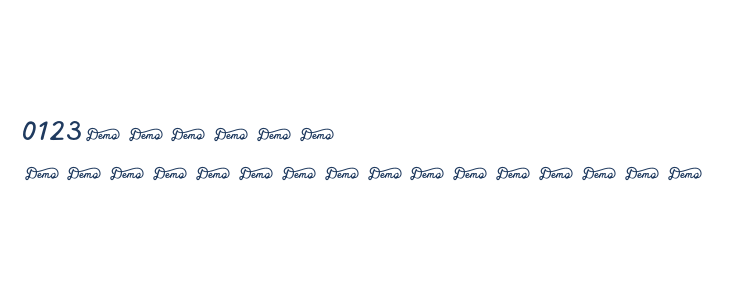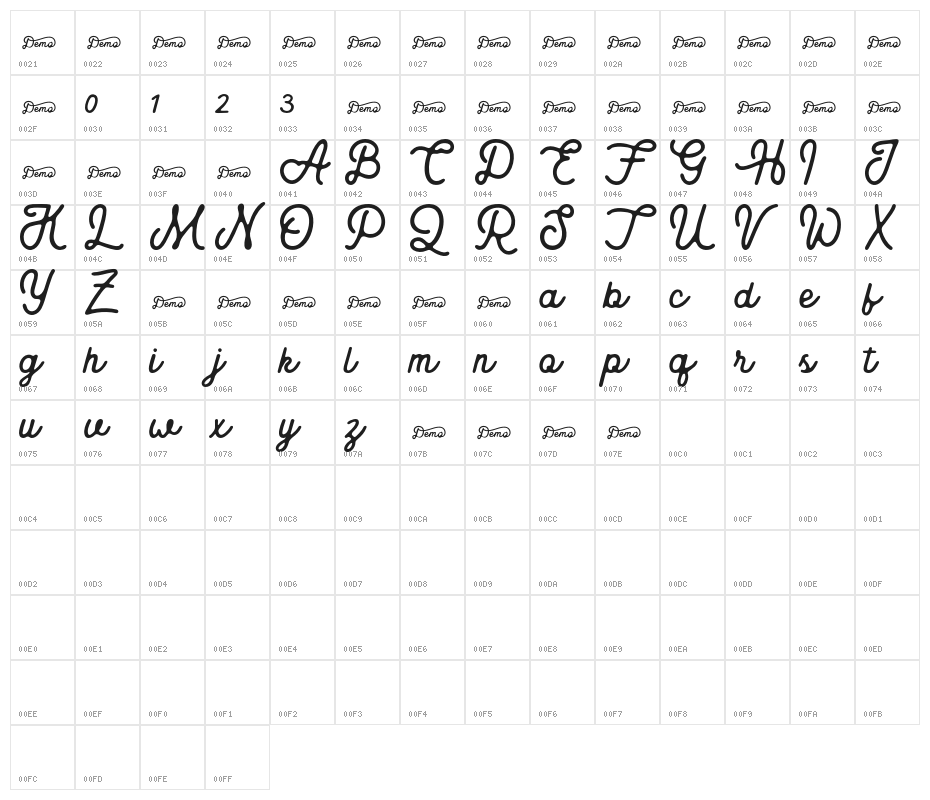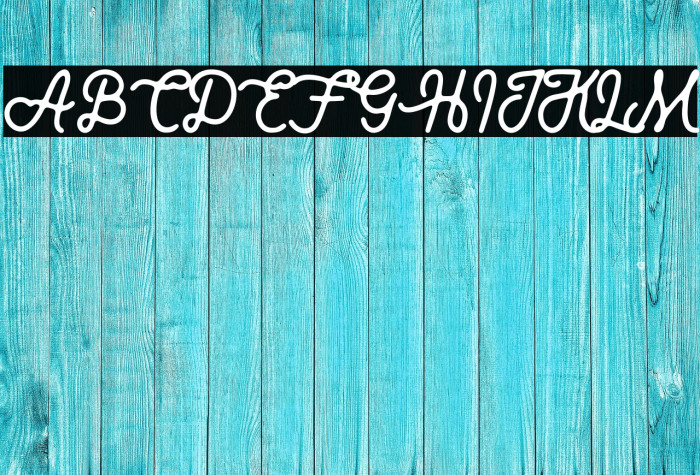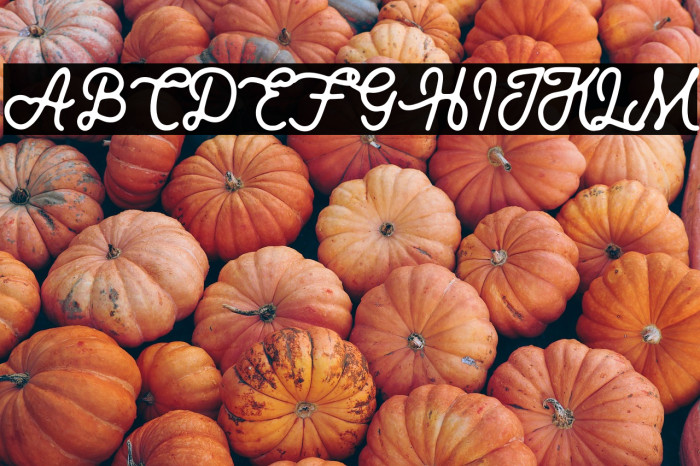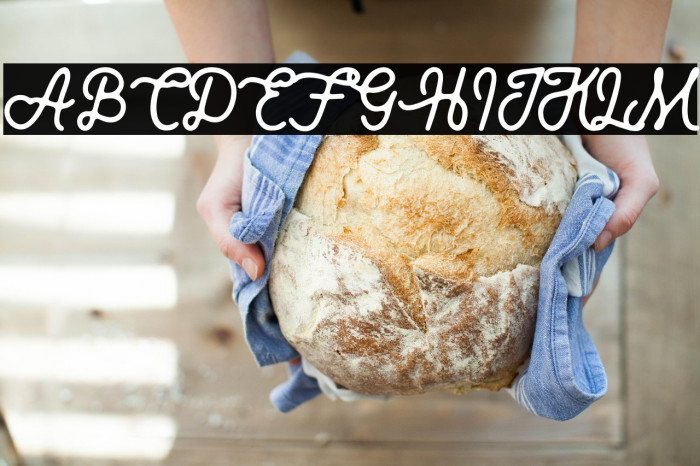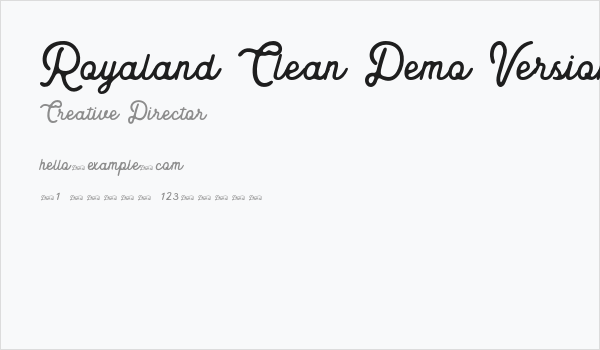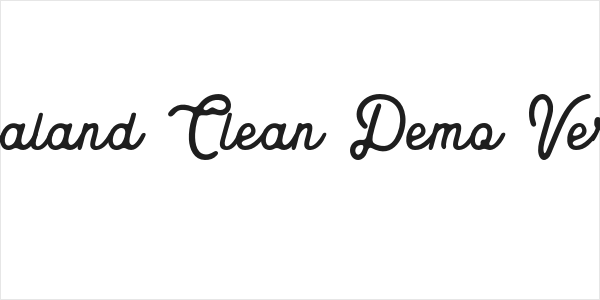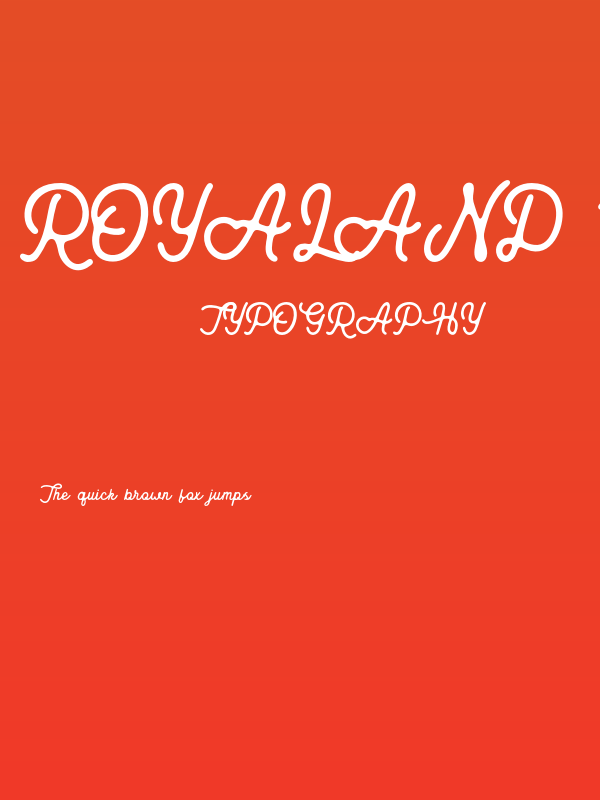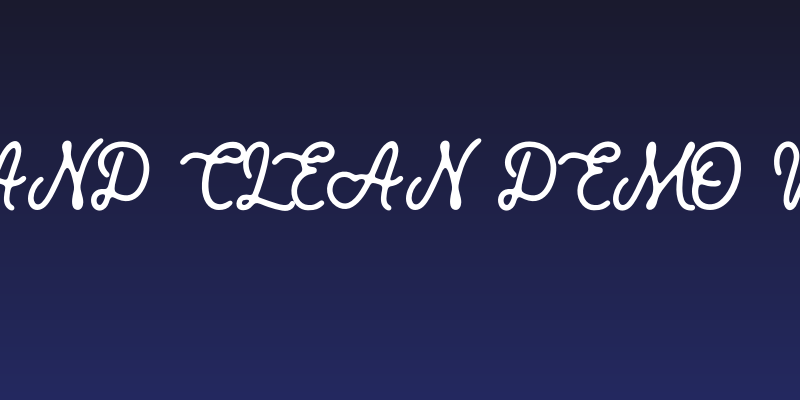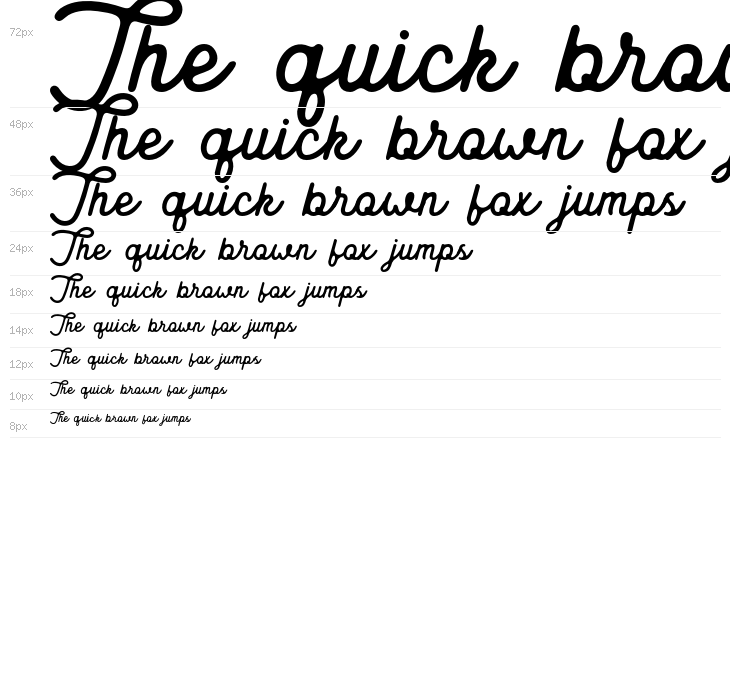
Royaland Clean Demo Version Font
Royaland Clean Demo Version Description
This font features a flowing, cursive style with a modern twist. The uppercase letters are elegantly connected, showcasing a harmonious blend of traditional script and contemporary design. The lowercase letters maintain a consistent flow, with smooth curves and rounded edges that enhance readability. The numbers are designed with a similar fluidity, ensuring they complement the overall aesthetic. Special characters are crafted with the same attention to detail, providing a cohesive look across all elements. This font exudes a sense of elegance and sophistication, making it ideal for projects that require a touch of class and style.